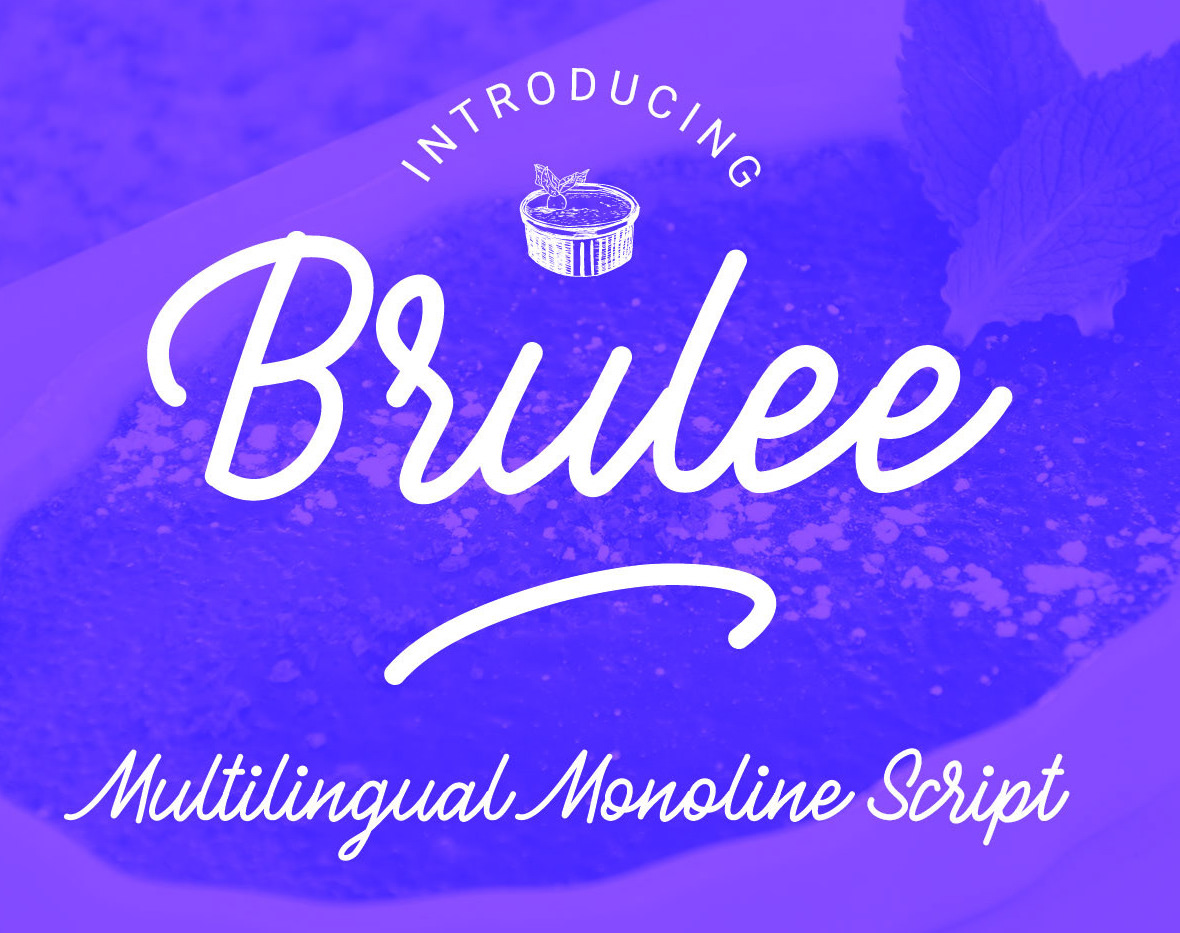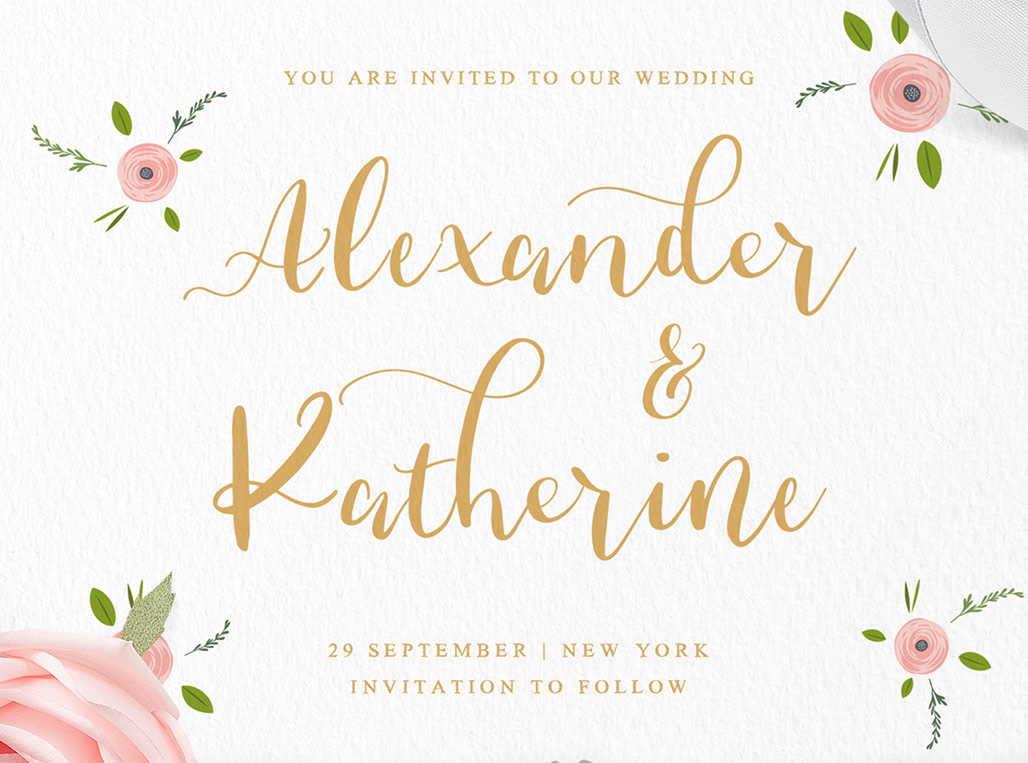
George Bourletsikas [George Bourle]
Or George Bourle. Thessaloniki, Greece-based lettering artist. Designer of Ellinikon (2019), The Knot (2019: a font duo meant for weddings), Left Hand Kids Font (2019), Boldera (2019: brush style), Coolscript (2019) and Brulee (2019: a monoline script).
George Bourletsikas